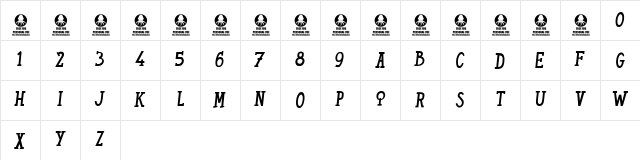
THE CHIQUITAS Regular
| Foundry | Octotype |
| Designer | Octotype |
Design Context for THE CHIQUITAS Typeface
THE CHIQUITAS is a composed and adaptable typeface that performs quietly and consistently across a wide range of design contexts.